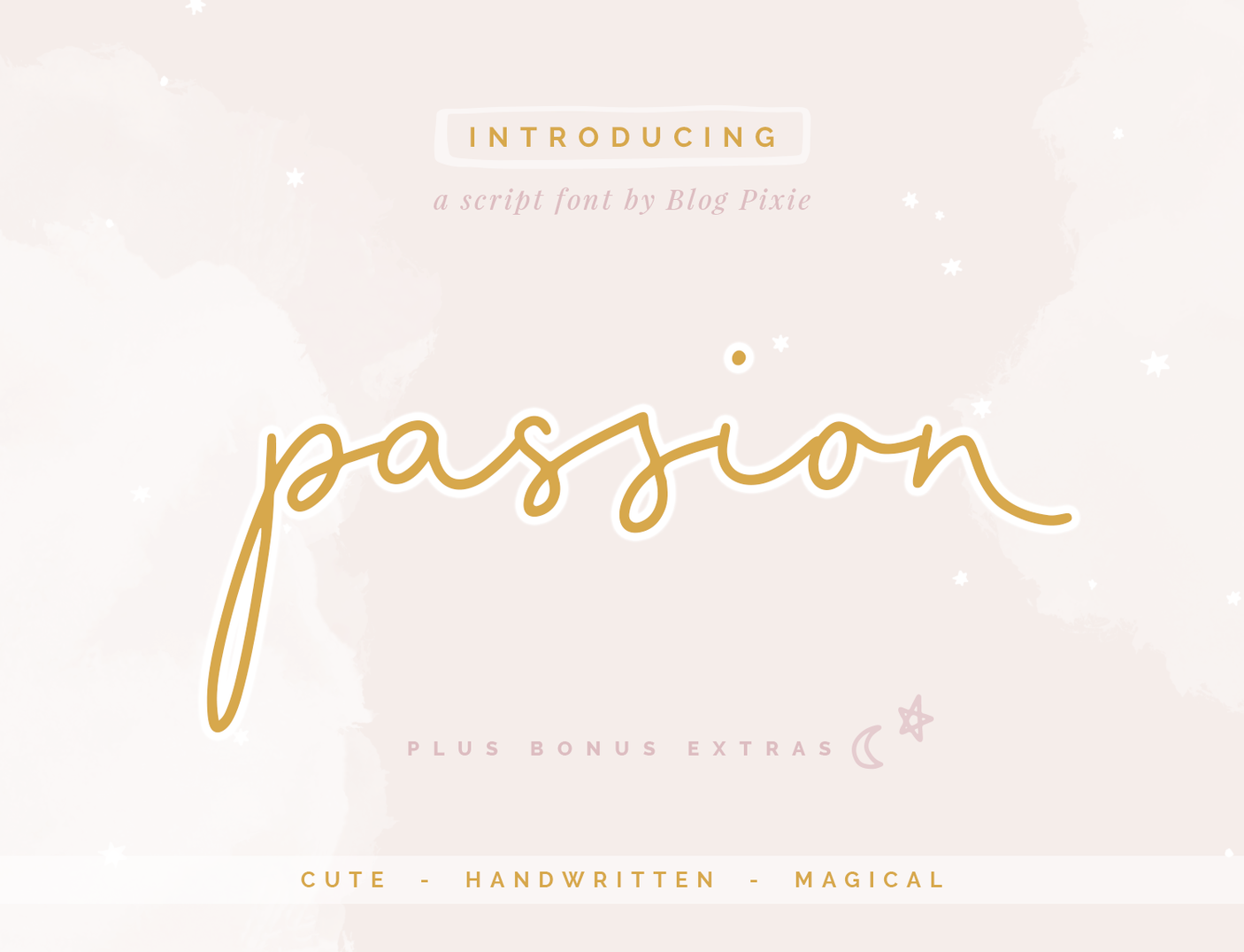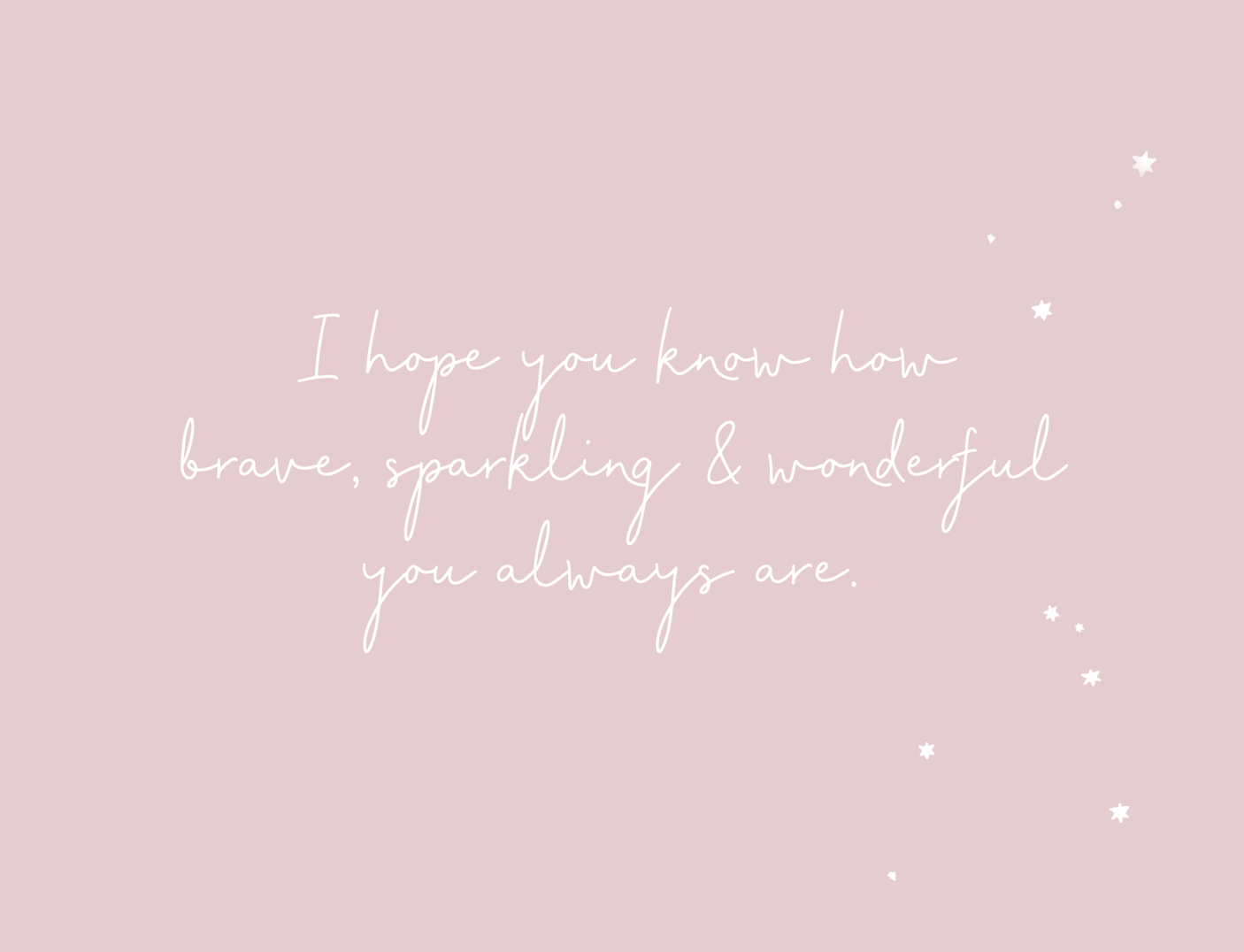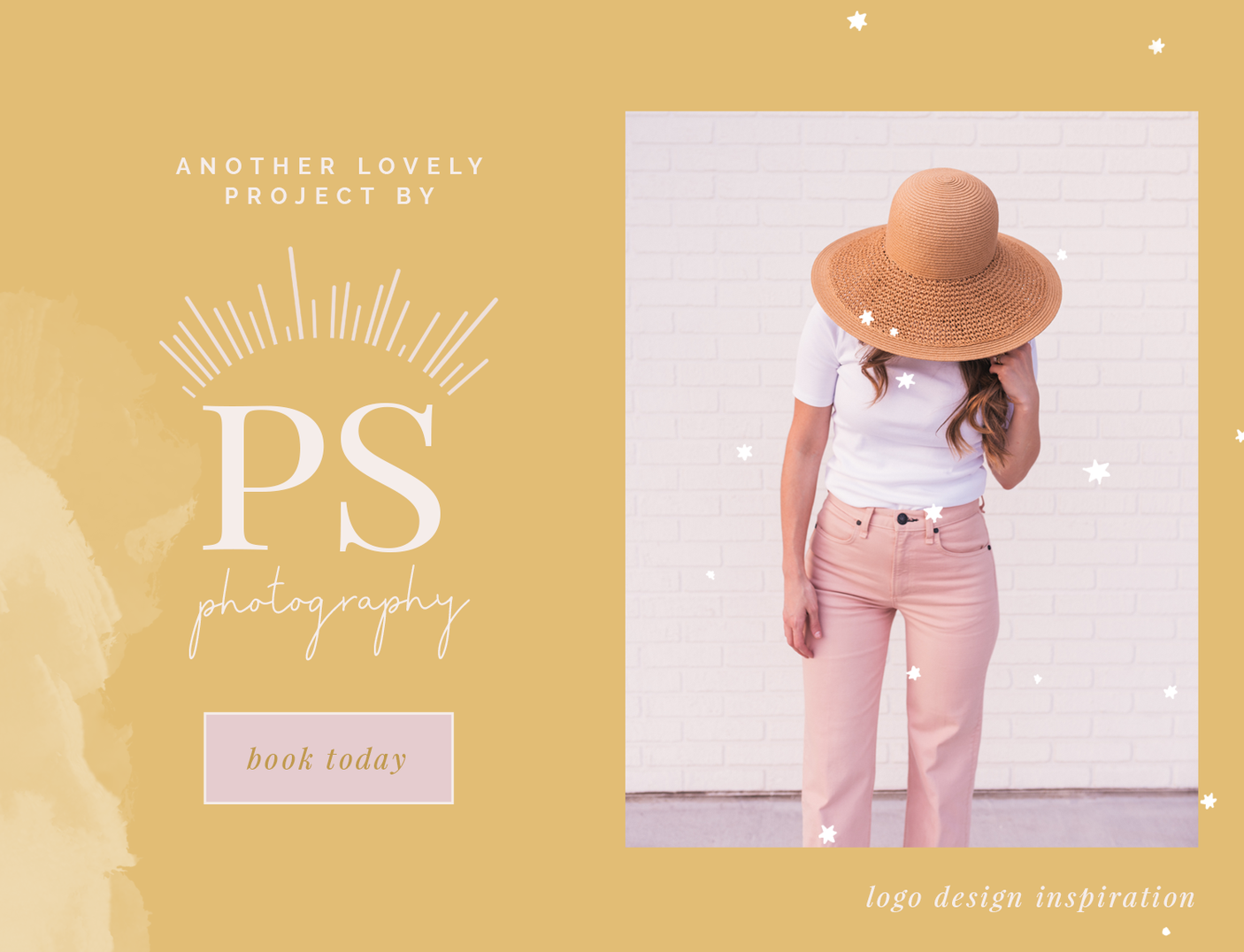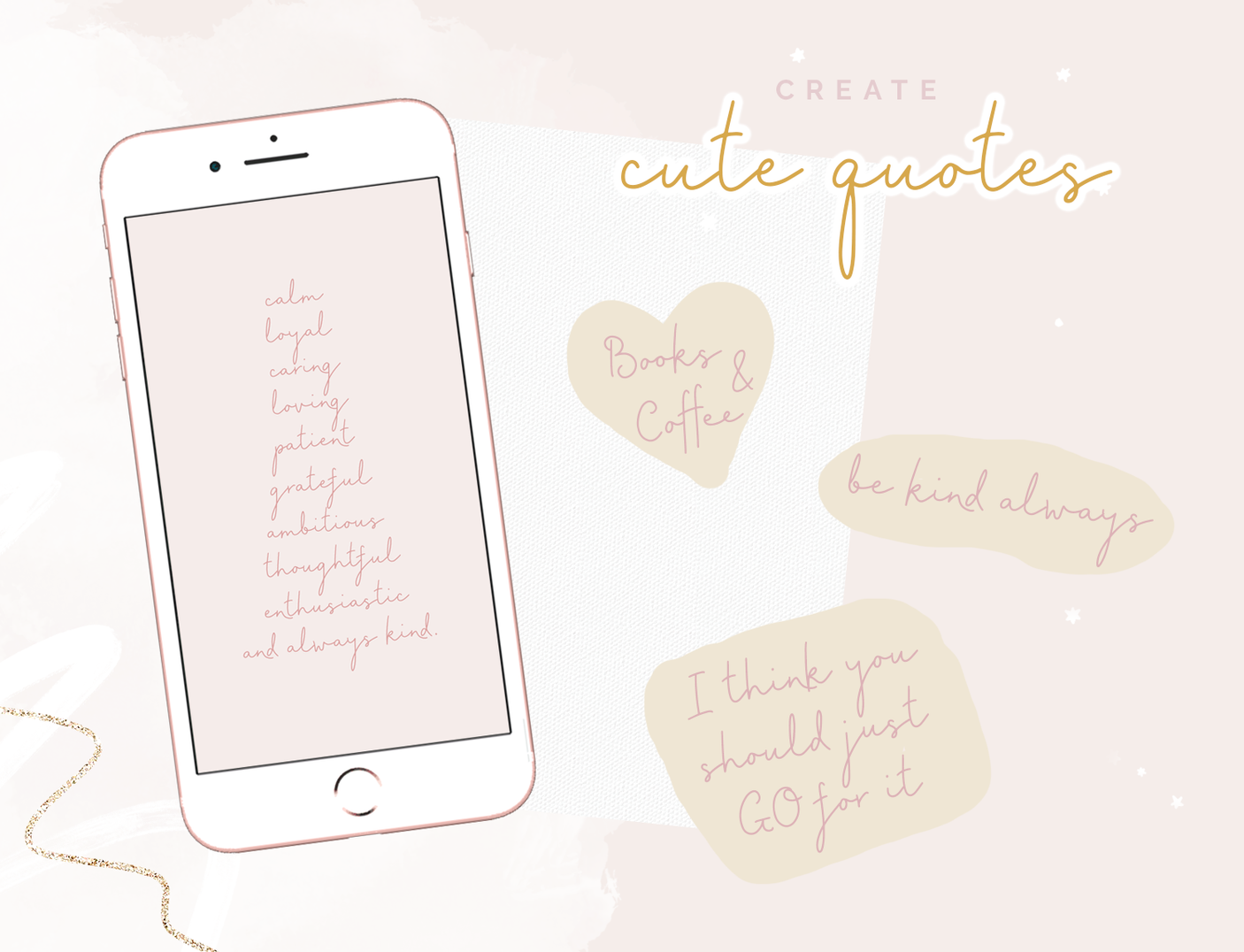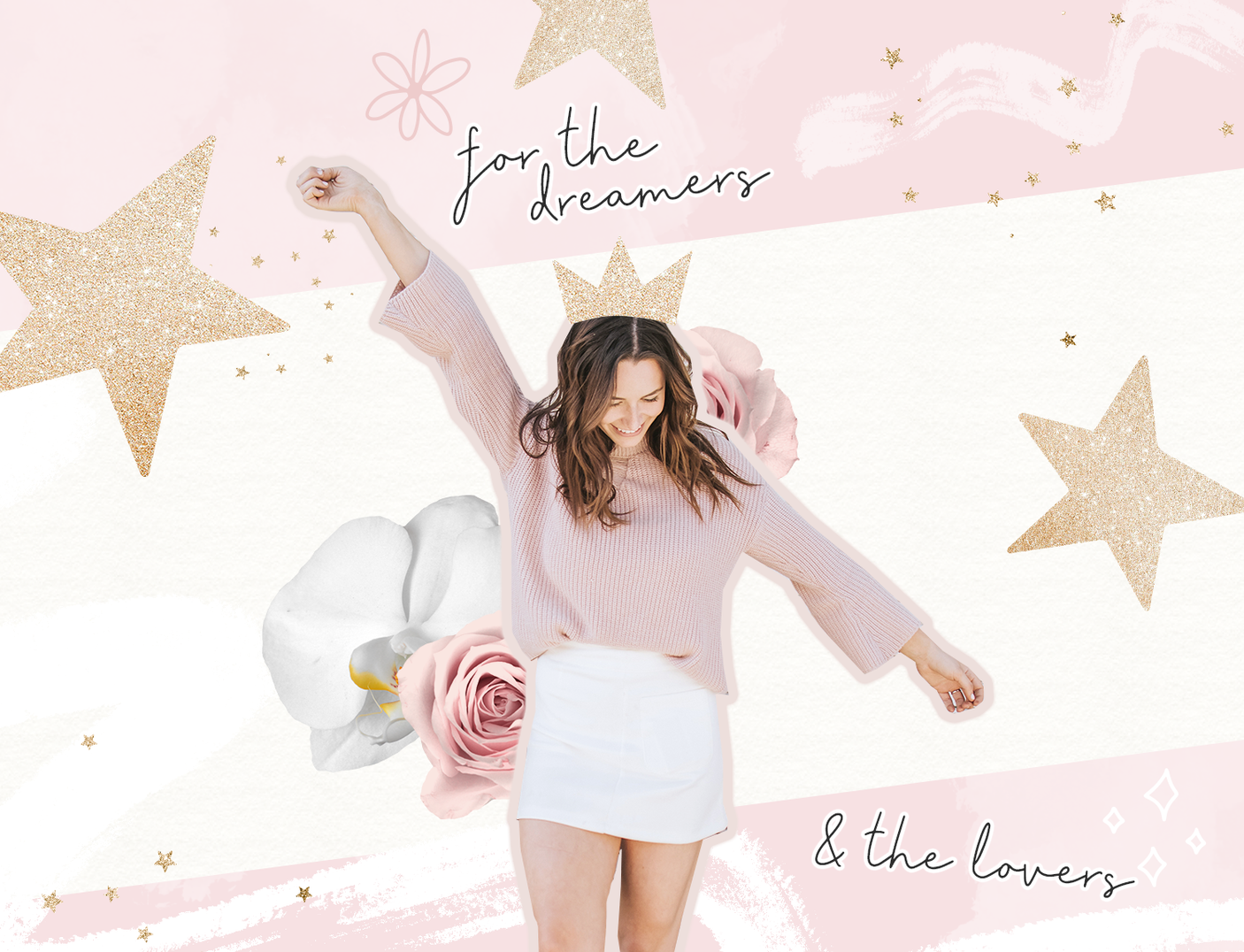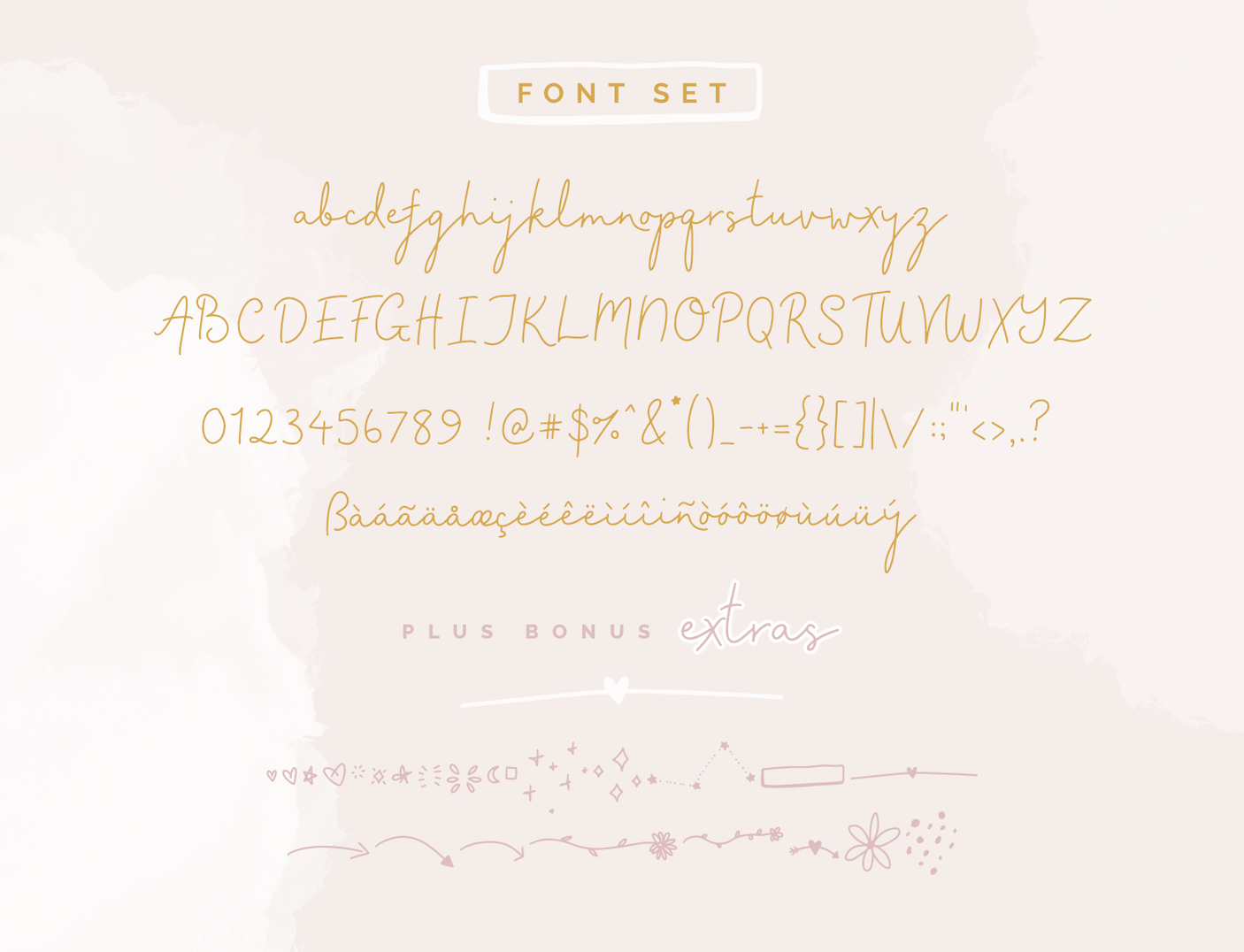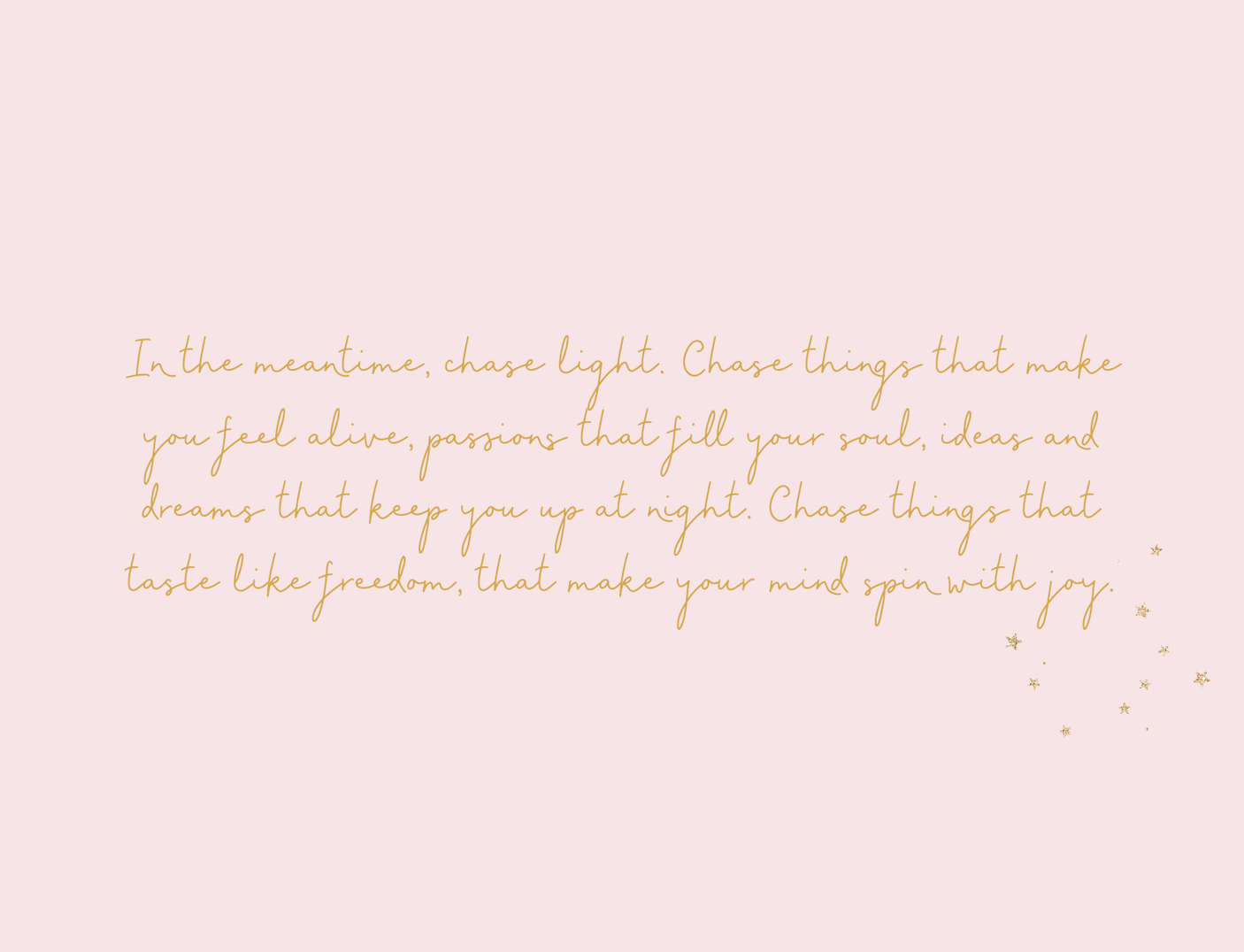
Passion Font
Passion script font is a cute, magical font with bonus extras!
Perfect for creating cute quotes or adding a whimsical touch to a project, Passion script font looks wonderful in an array of colors or even with a white outer glow to really make it pop.
Use Passion handwritten script for quotes, collages, print design, logos, magazine, eBooks, blogging and Instagram.
The Extras font includes a selection of clipart to use when typing from lowercase a to z.